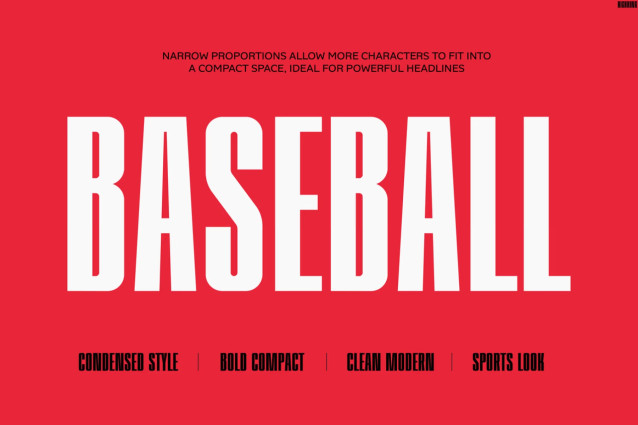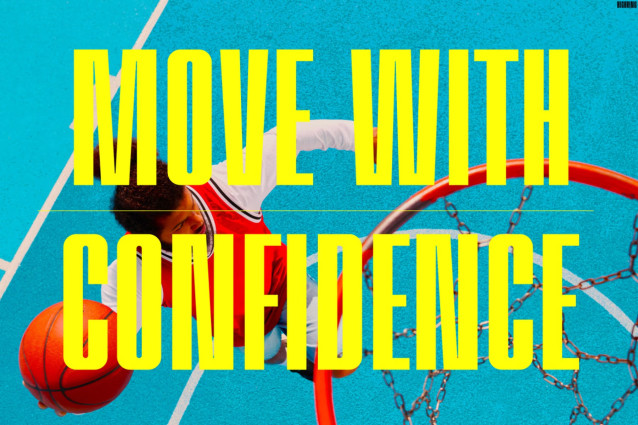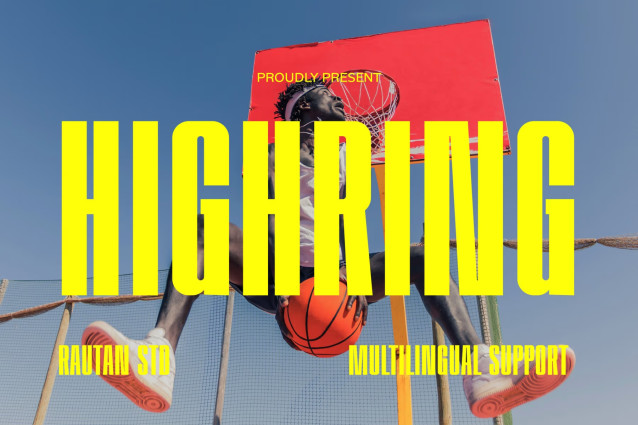
HIGHRING Font
Sport Font HIGHRING transforms competitive energy into bold typography that never slows down. Instead of using ordinary sports lettering, HIGHRING combines tall condensed forms, sharp edges, and commanding proportions to create headlines that radiate speed and determination. Moreover, its athletic silhouette builds a strong visual rhythm that immediately captures attention.
As a result, every design feels more competitive, more energetic, and more powerful. At the same time, the streamlined structure keeps every word crystal clear on both digital screens and printed materials. Furthermore, Multilingual Support for 67 languages allows your brand to perform confidently across international markets.